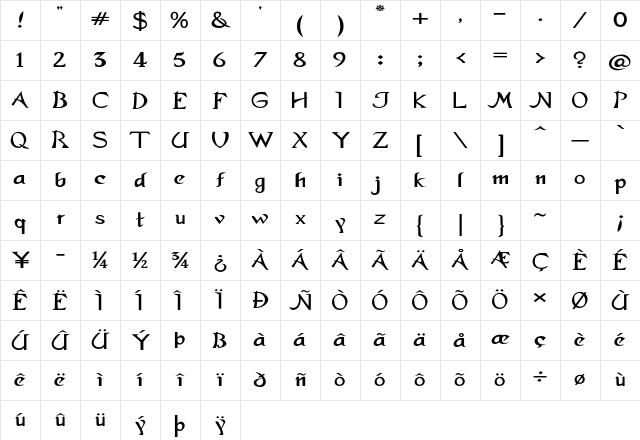
Redfall Expanded Bold
Style: Expanded Bold
Redfall Expanded Bold
Design Context for Redfall
Redfall is a composed and adaptable typeface that performs quietly and consistently across a wide range of design contexts. Its bold stroke weight gives it real presence on the page.
Pro Tip: Use Redfall in both headline and body roles to test its range before committing to a single application.